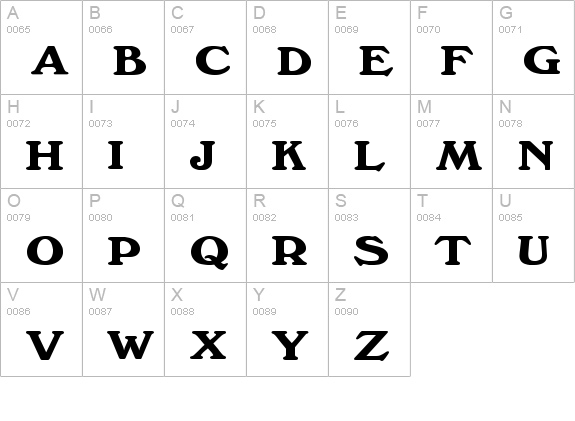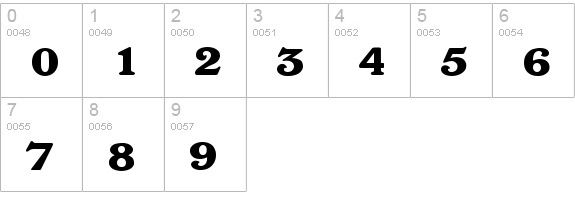
Windz Wide Normal Font Details
Windz Wide Normal is the standard, neutral, extended-width variant in the Windz typeface family \xE2\x80\x94 well suited to general body text, paragraphs, and standard typographic work.